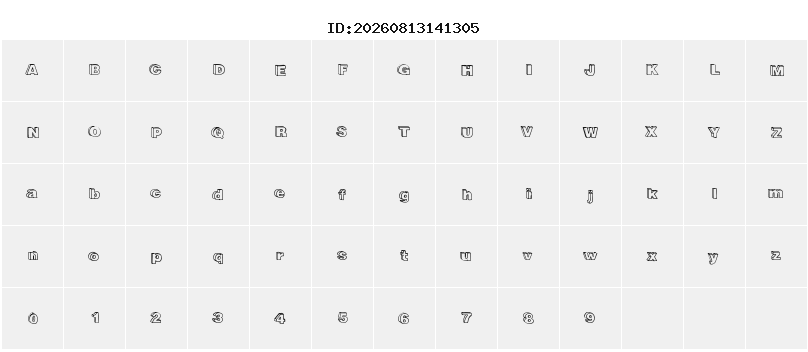
• Font Name: Recreational
• Full Font Name: Recreational
• Version: Version 1.00 December 11, 2016, initial release
• Designer: Max Infeld
• Description: Created by Xerographer Studios in Chico, California.
About Recreational.ttf
Recreational.ttf is a modern, elegant sans-serif font designed for ultimate readability and visual harmony. Perfect for branding, headlines, web design, and print materials.